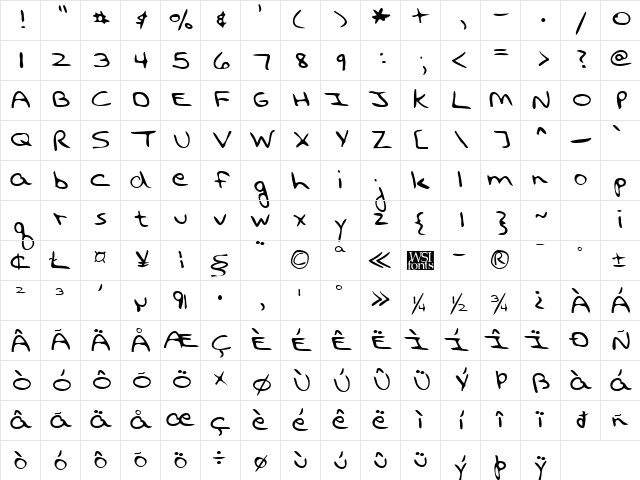
MargosHand Regular
MargosHand Family
Design Context for MargosHand
MargosHand flows with the natural rhythm of handwritten lettering, making it ideal for designs that call for warmth and personal expression.
Font Pairing: Combine MargosHand with a simple geometric sans for maximum contrast - the tension between flowing curves and clean structure is a classic typographic pairing.
Pro Tip: Use MargosHand for short runs of text - names, titles, or taglines. Extended body copy in script faces tires the eye quickly.